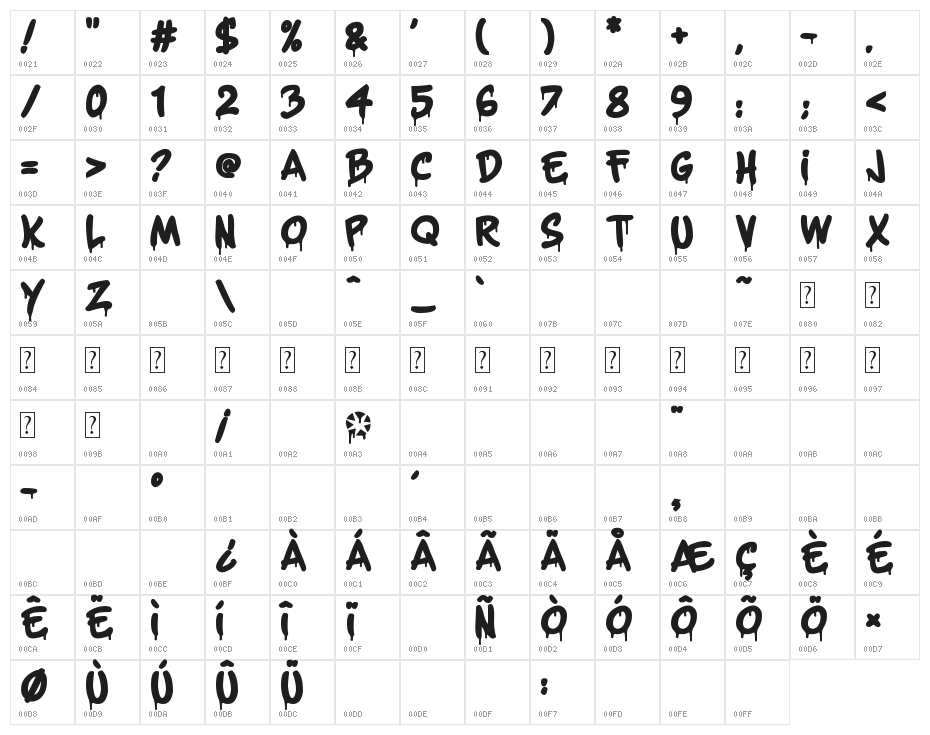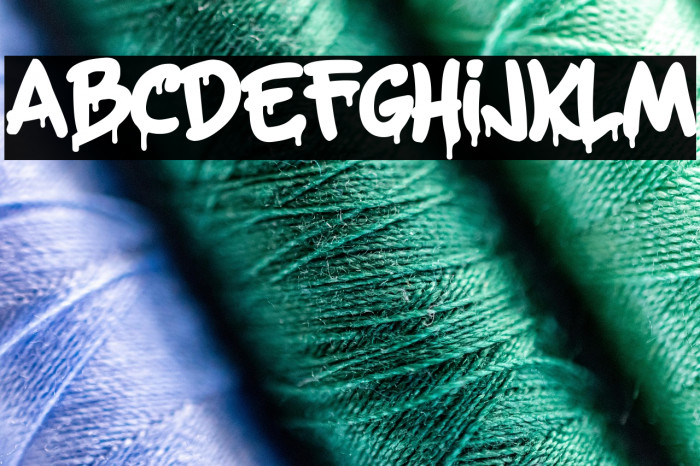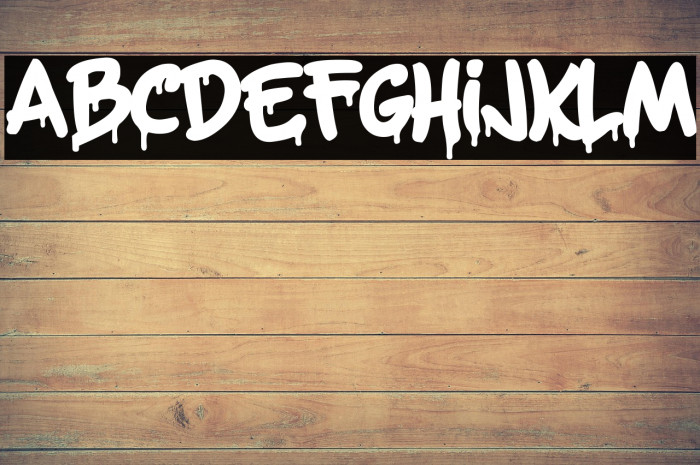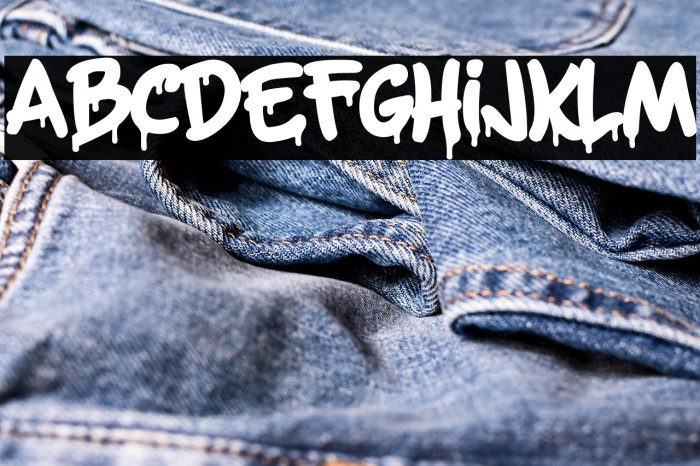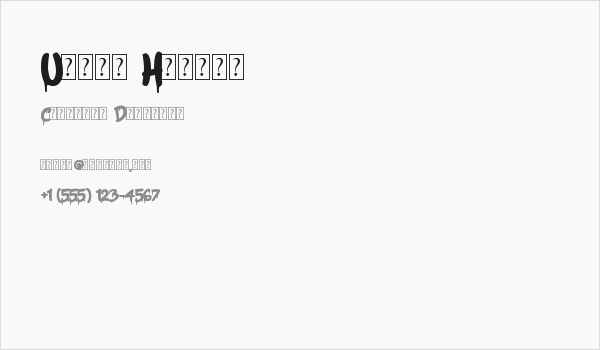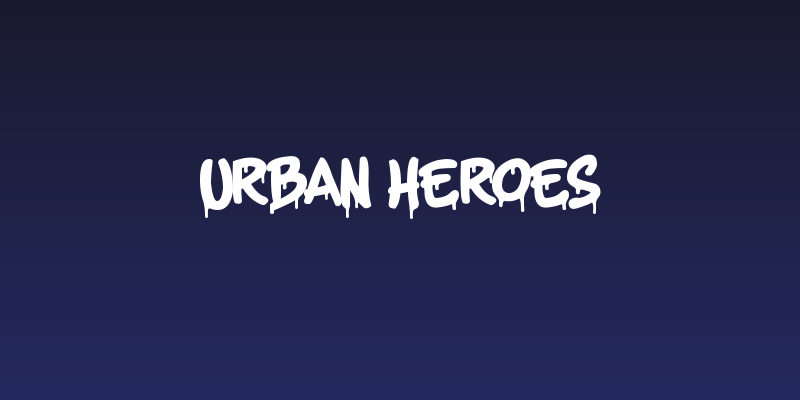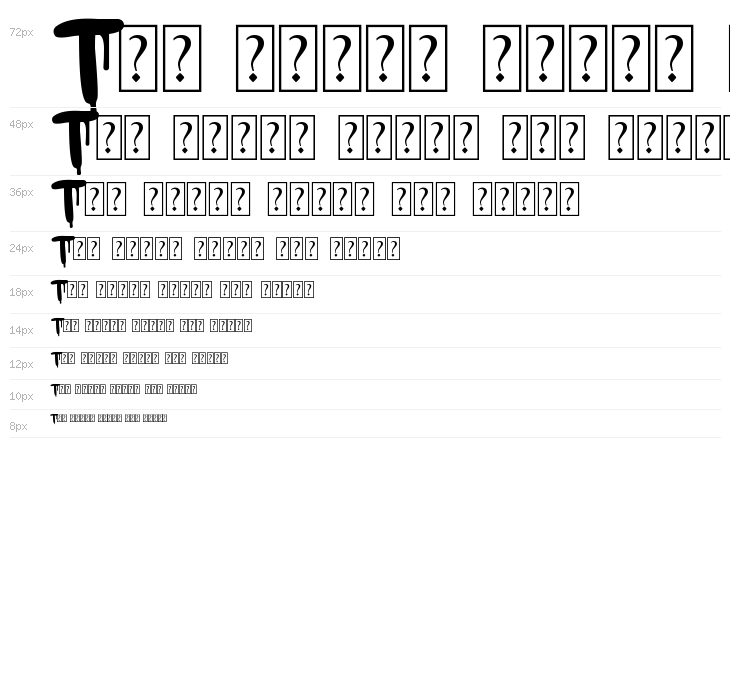
Urban Heroes Font
Urban Heroes Description
This font exudes an urban, graffiti-inspired aesthetic with bold, thick strokes that mimic the look of spray paint. The letters have a dripping effect, adding to the street art vibe. The characters are uppercase and lowercase, with numbers and special symbols, all maintaining a consistent style. The design is playful yet edgy, making it perfect for projects that require a strong, artistic statement. Its unique appearance captures the essence of urban culture, making it ideal for creative and unconventional designs.
| Overall Style | Urban, Graffiti, Edgy |
| Use Case | Logos, Posters, Album covers |
| Proposed Projects | Ideal for street art projects, urban-themed posters, music album covers, and edgy branding materials. |